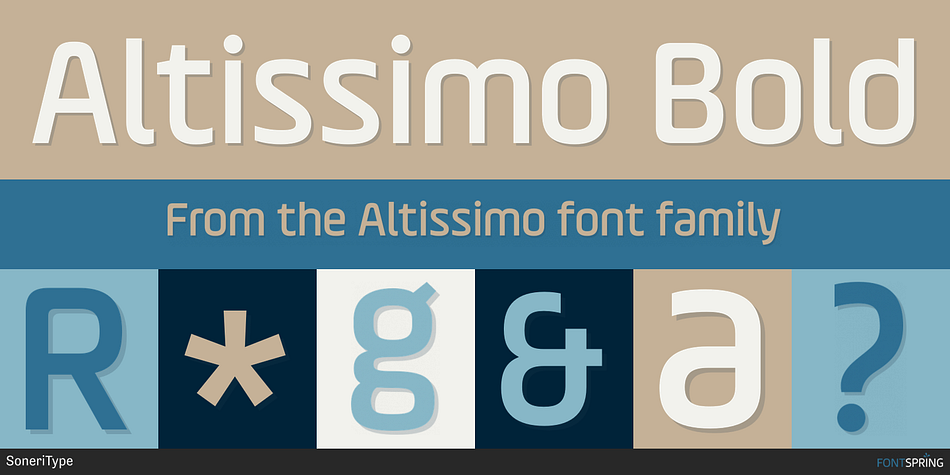
Altissimo Bold
Altissimo is a sans serif font family. This typeface has seven styles and was published by SoneriType.
Altissimo is a display type family, derived from Ample typeface, it has large x-height, optical monolinear and a bit squarish in nature. It has a smooth curve instead of sharp angles formed by the junction of two strokes, which is a prominent feature of its design.
It is designed to be a little eye-catching yet legible. It has clear and distinguishable letterforms, which helps to elaborate and emphasize the message. It is graphically strong and commands viewer’s attention. The overall appearance of type is suitable for setting it as heading, title, headline, etc.
The type family consists of seven weights viz. Thin, ExLight, Light, Regular, Medium, Bold and ExBold.
Altissimo is designed by Aakash Sonerii in a period between 2017 and 2018.